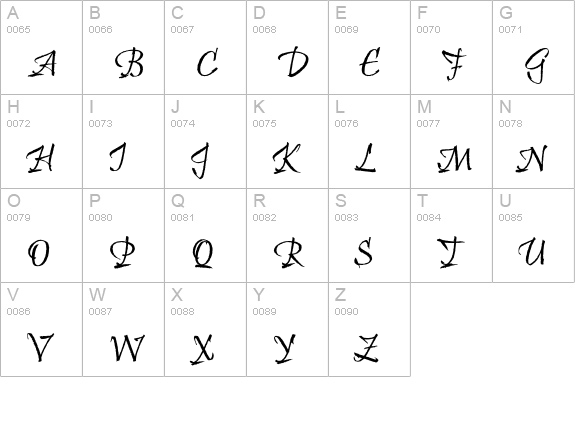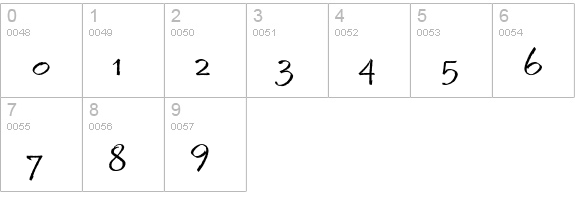
Ruling Script Two Font Details
Ruling Script Two font exudes elegance and sophistication with its flowing cursive strokes and timeless charm. Perfect for adding a touch of class to invitations, logos, and editorial designs, this font is a must-have for any designer looking to make a statement. The graceful lines and intricate details of Ruling Script Two font will captivate and inspire your audience, leaving a lasting impression of refinement and style. Best of all, Ruling Script Two font is available for free download at FontsMarket.com. Now you can elevate your projects with this exquisite font without breaking the bank. Don't miss out on the opportunity to add a touch of luxury to your designs with Ruling Script Two font, freely accessible for all your creative needs.